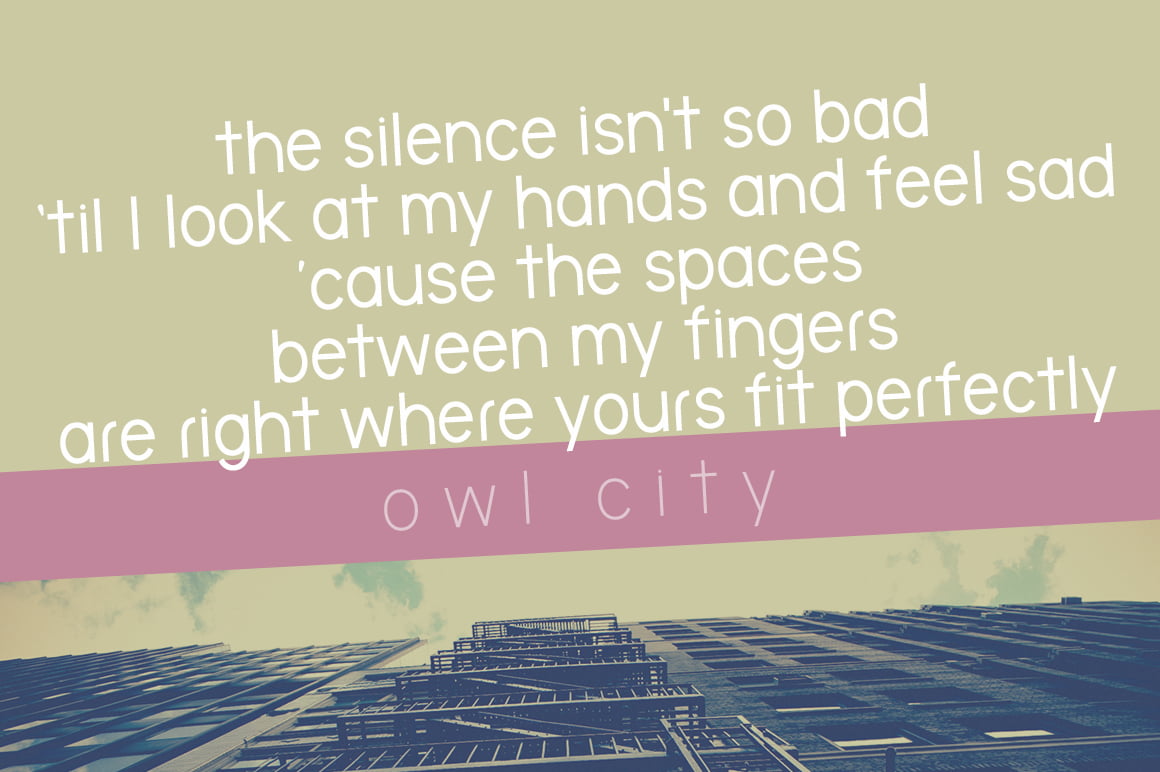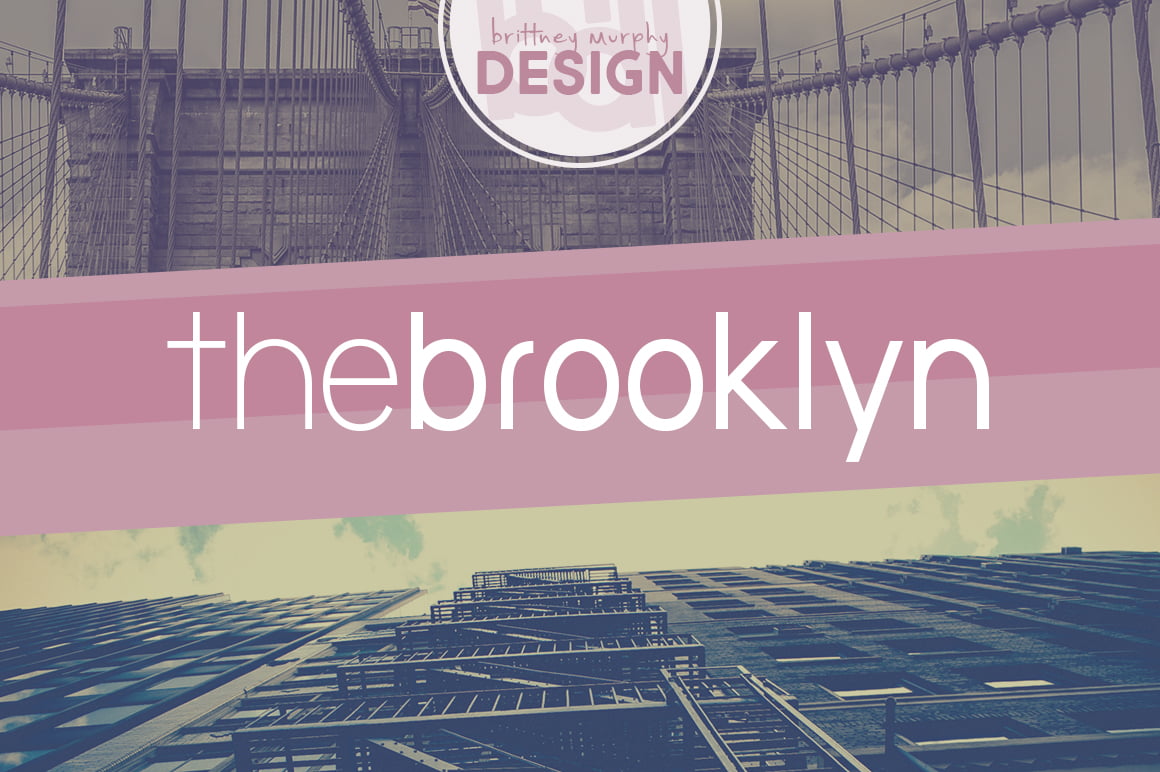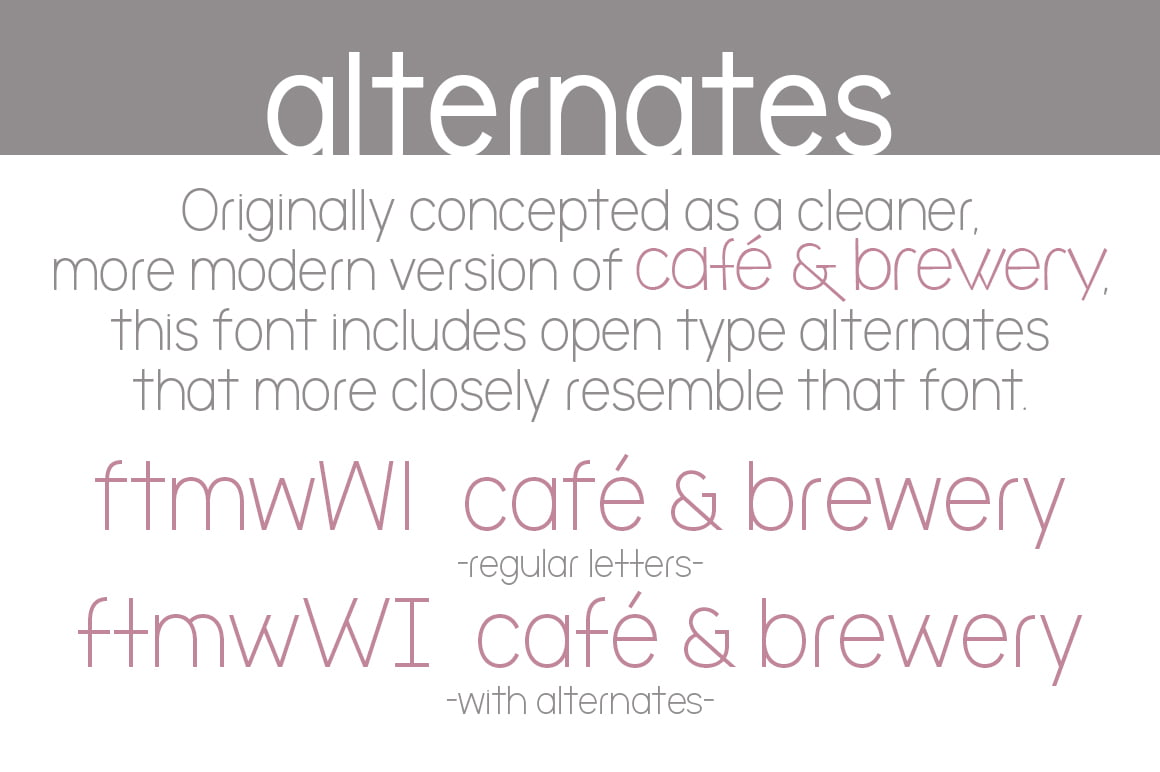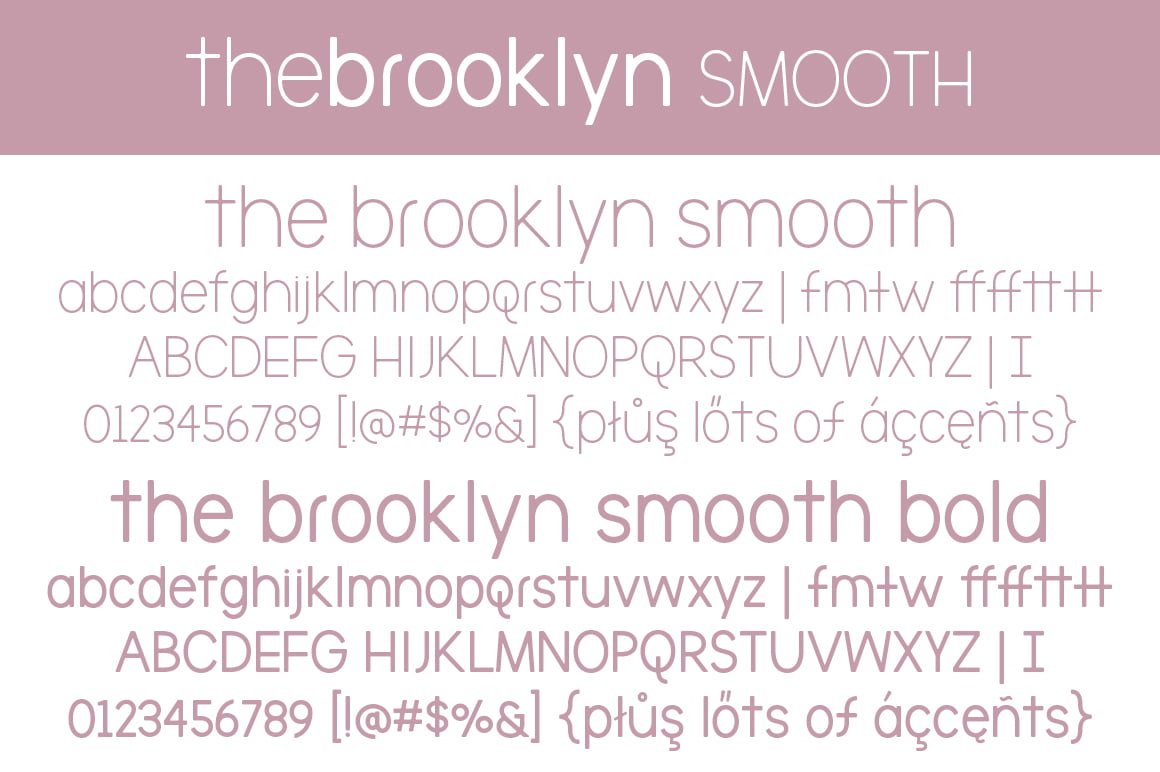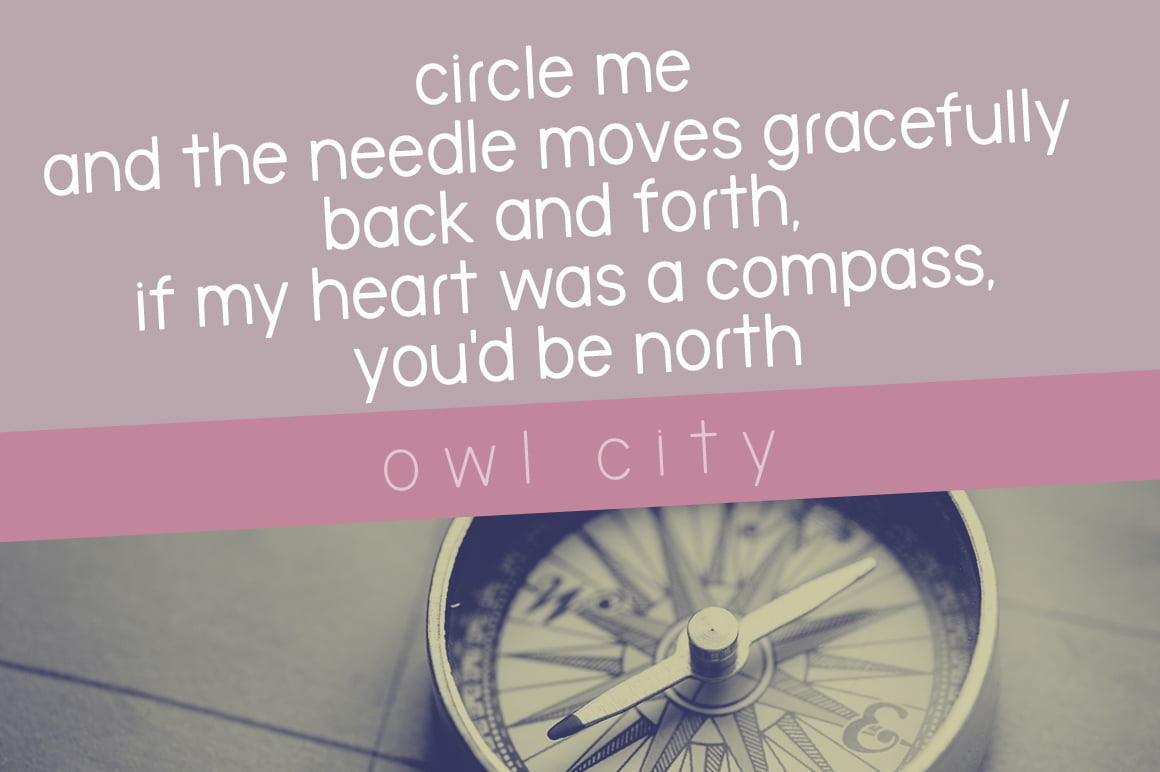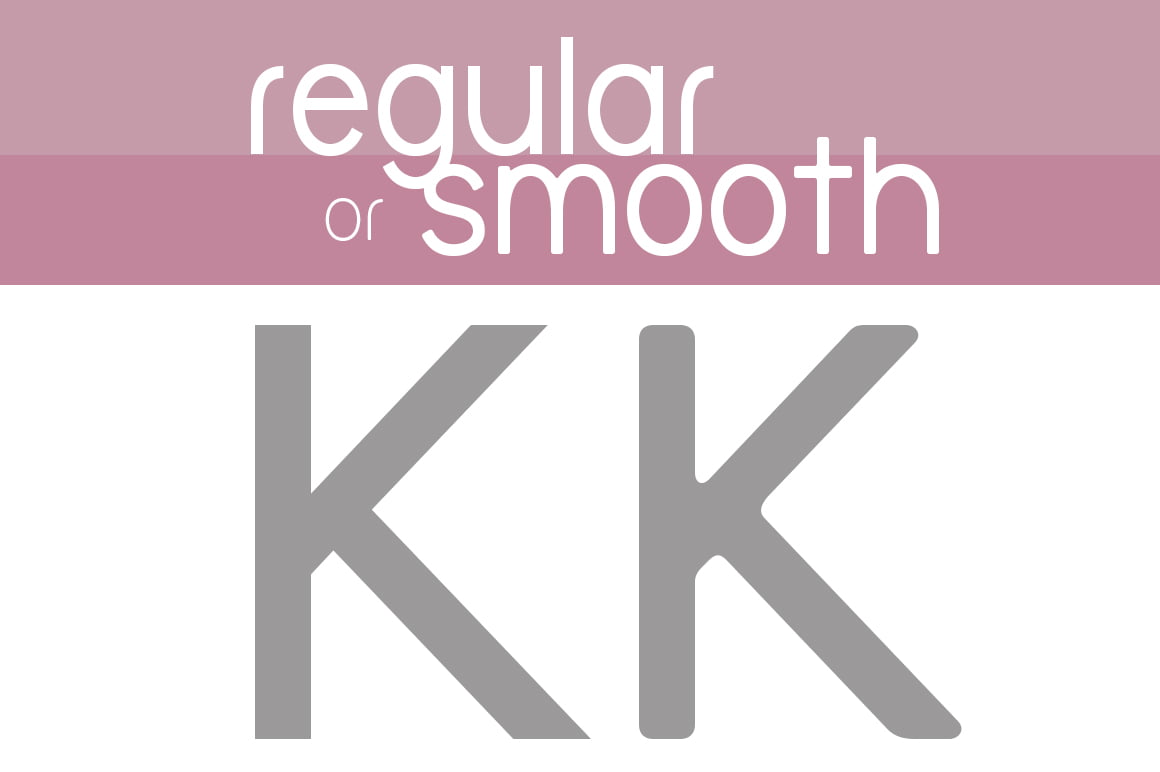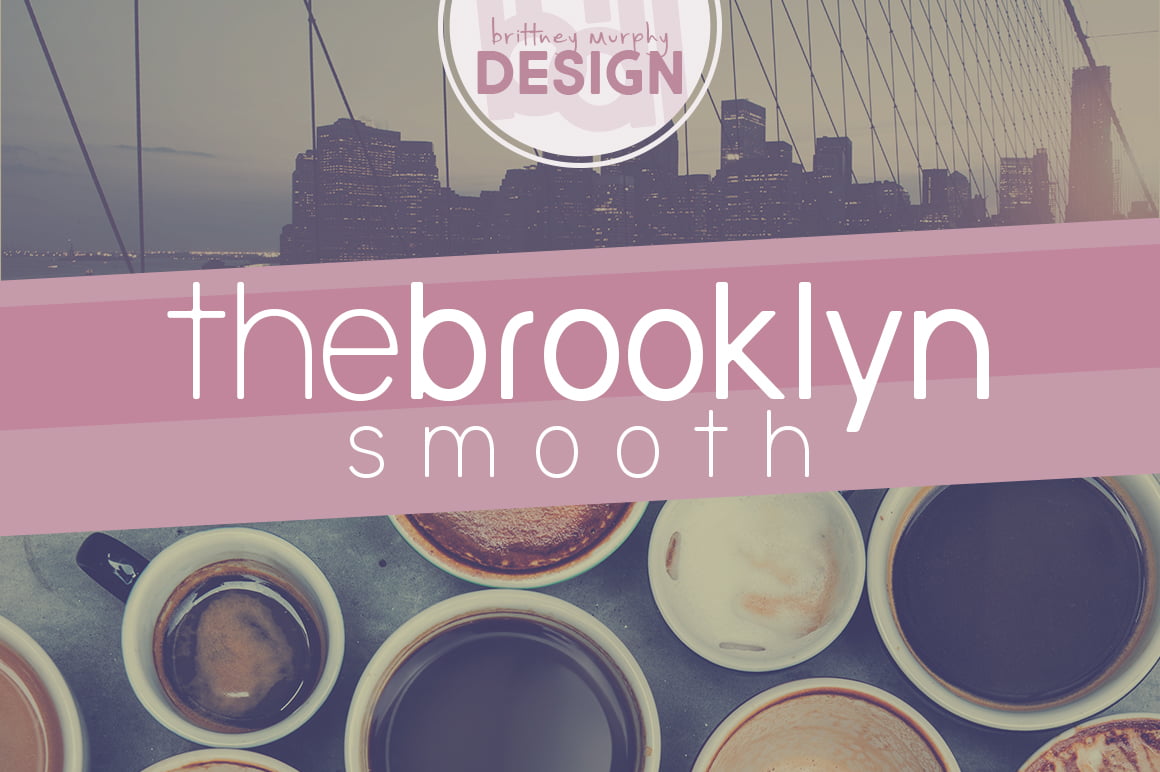
The Brooklyn
The Brooklyn Title
The Brooklyns Smooth Title
The Brooklyn Letters
The Brooklyn Quote
The Brooklyn Alternates
The Brooklyn Smooth Quote
The Brooklyn
Clean, open and versatile, The Brooklyn font pairs great with script fonts, and works well for bylines and text.
The fonts have over 400 characters each, including Cyrillic and lots of accented Latin.
The Brooklyn was created as a cleaner, more modern take on Café & Brewery, and includes alternate characters (f,m,t w,W,I) that more closely resemble that font.
The Brooklyn Font Family includes regular and smooth versions in two weights each.